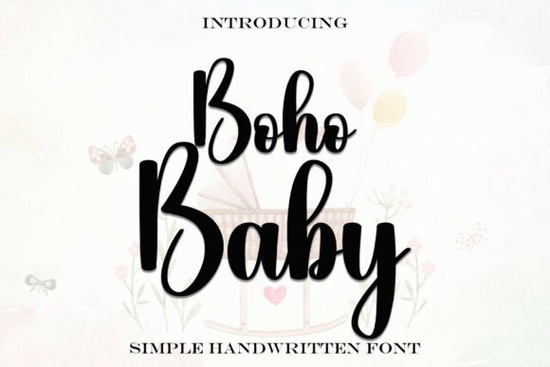
If you're looking for a handwritten font that feels both gentle and modern, Bohobaby Font offers a balanced mix of softness and clarity. It’s especially well-suited for projects centered around babies, children, or anything that calls for a warm, handcrafted touch without veering into overly whimsical territory. Whether you’re designing baby shower invites, custom onesies, nursery wall art, or even branding for a small baby product line, this font brings a friendly, timeless vibe that stays readable and versatile.
What makes Bohobaby Font work so well for baby-themed designs?
Handwritten fonts can sometimes feel too messy or inconsistent, but Bohobaby avoids that trap. Its letterforms have smooth, flowing strokes with just enough variation to feel natural not robotic but consistent enough to maintain legibility at different sizes. The x-height is balanced, so lowercase letters don’t disappear next to uppercase ones, and the spacing between characters feels open and relaxed without being sparse.
It includes a full character set: uppercase and lowercase letters, numerals, punctuation, and multilingual support. That means you can confidently use it for international clients or bilingual projects without running into missing glyphs. For crafters and print-on-demand sellers, that reliability saves time and reduces last-minute fixes.
How does it compare to other script fonts on Creative Fabrica?
While many script fonts lean heavily into flourish or drama, Bohobaby keeps things understated. If you’ve used fonts like Lockride or Casualbrush, you’ll notice Bohobaby sits on the calmer end of the spectrum less brushy, more pencil-on-paper. It pairs beautifully with clean sans-serifs or minimalist display fonts, making it a flexible choice for layered designs.
For contrast, something like Barbie Valentines Outline has bold, playful outlines perfect for holiday themes, while Monday Outline leans into geometric structure. Bohobaby doesn’t compete with those styles it complements them. You might use it for body text or secondary messaging alongside a bolder headline font like Simple Preppy.
Real-world uses for designers and small businesses
Here’s where Bohobaby shines in practice:
- Baby shower stationery: Invitations, thank-you cards, and favor tags all benefit from its cozy, personal feel.
- Nursery decor: Wall decals, growth charts, or personalized name signs look inviting without being cutesy.
- Kids’ apparel: Print-on-demand sellers can use it for subtle chest prints or back-neck labels that feel handmade.
- Social media graphics: Quotes, announcements, or milestone posts gain warmth and authenticity.
- Product packaging: For organic baby lotions, handmade toys, or boutique diapers, it adds a human touch to labels.
Because it’s not overly stylized, it scales well from tiny taglines on stickers to large-format posters. And since it’s a single-weight font (not part of a variable family), there’s no confusion about which style to choose; what you see is what you get.
Tips for pairing and using Bohobaby effectively
To keep your design from feeling too “soft,” pair Bohobaby with a neutral sans-serif like Montserrat, Lato, or even a light slab serif. Avoid pairing it with another script unless one is used very sparingly (e.g., Bohobaby for names, a tighter script for dates).
Use it at medium to large sizes for best effect below 12pt, some delicate joins may blur in print. For digital use, ensure sufficient contrast against backgrounds; its thin strokes can disappear on busy patterns.
If you’re exploring similar options, you might also like the Bohobaby Font page on Creative Fabrica, where you can preview it in context and check licensing details for commercial use.
Before you download: a quick checklist
- ✅ Confirm your project aligns with the font’s gentle, modern aesthetic.
- ✅ Check if you need extended language support (it’s included, but good to verify).
- ✅ Test readability at your intended size especially for printed goods.
- ✅ Consider how it pairs with your existing brand fonts or templates.
Bohobaby Font isn’t flashy but that’s exactly why it works. In a world of exaggerated scripts and ultra-bold displays, its quiet charm stands out by feeling genuine. For anyone creating heartfelt, child-focused designs, it’s a reliable tool that adds personality without overwhelming your message.